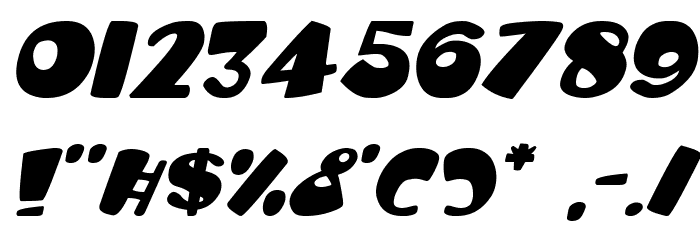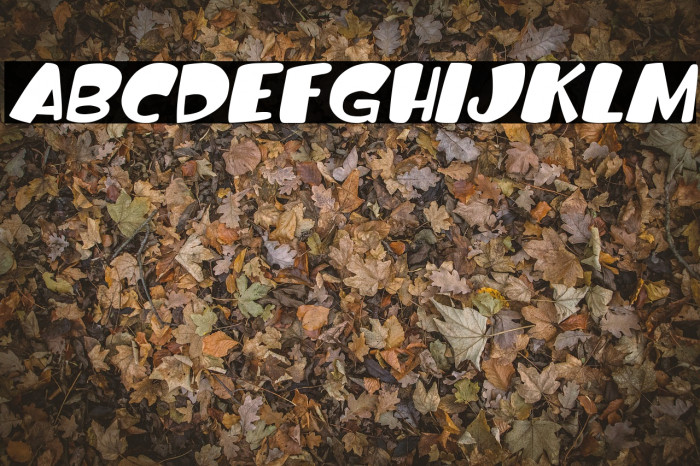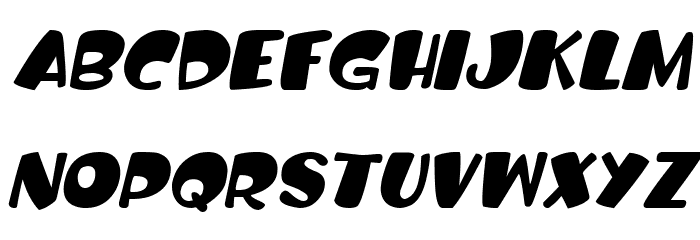
Balloon Craft Italic Font
This playful and bold font features a whimsical, balloon-like design with a distinct italic slant. The characters are rounded and full, giving a sense of fun and movement. The uppercase and lowercase letters maintain a consistent style, with exaggerated curves and a slightly condensed form. The numbers and special characters follow the same playful aesthetic, making this font ideal for creative and informal projects. Its unique style captures attention and adds a lively touch to any design.
A playful, balloon-like italic font with bold, rounded characters.
• Proposed Projects: Perfect for children's books, party invitations, playful branding, and creative posters.
• Category: Decorative/Display
• Bold: Yes
• Italic: Yes
• Weight: Bold
• Width: Condensed
• Character Spacing: Normal
• Contrast: Low
• Overall Style: Playful, Whimsical
• Use Case: Headlines, Logos, Posters